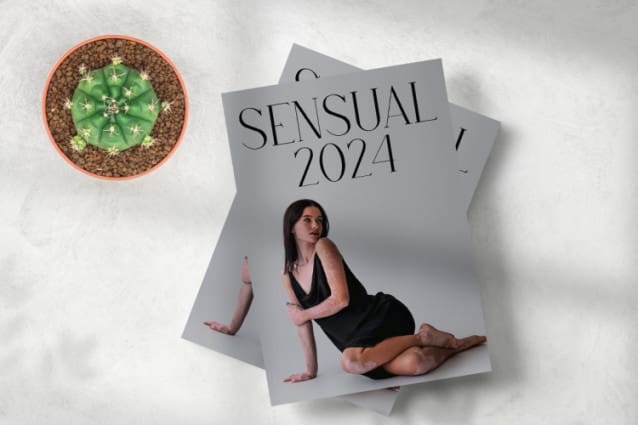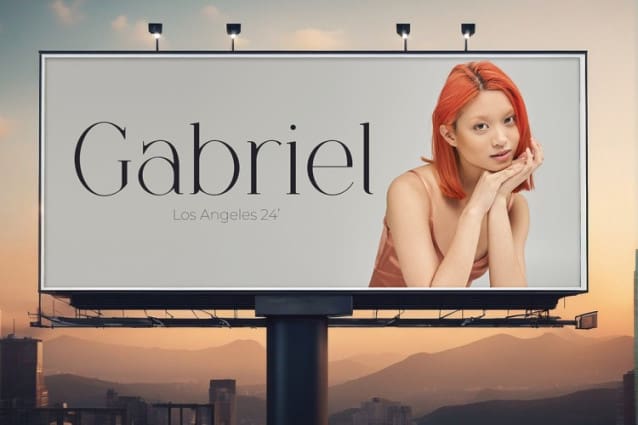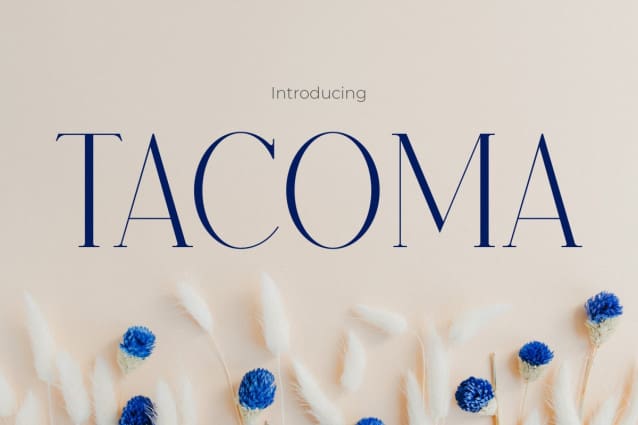
Tacoma Font
Tacoma Font, where allure meets sophistication in a captivating blend of sexiness and elegance. This font exudes a distinct aura of charm and refinement, making it the perfect choice for projects that demand a touch of allure and sophistication. With its sleek lines and graceful curves, Tacoma Font adds a seductive edge to any design, leaving a lasting impression of glamour and style.
Tacoma Font is designed to captivate and mesmerize, effortlessly infusing a sense of allure and sophistication into your projects. Whether used for fashion magazines, luxury branding, or romantic invitations, this font embodies a unique blend of sexiness and elegance that sets your designs apart. Elevate your visuals with TACOMAFont and indulge in the irresistible allure of its sleek and elegant charm.